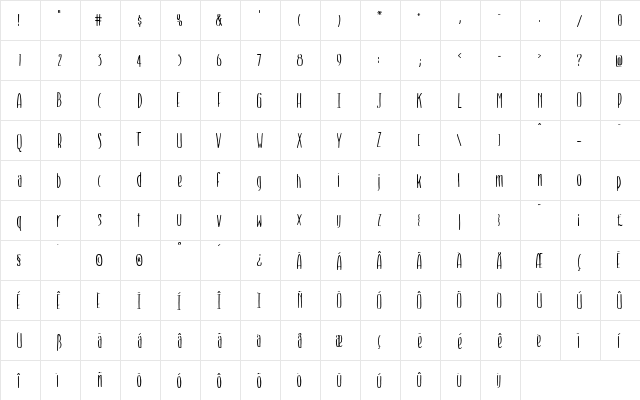
Smoothie Regular
Design Context for Smoothie Typeface
Smoothie is a composed and adaptable typeface that performs quietly and consistently across a wide range of design contexts.